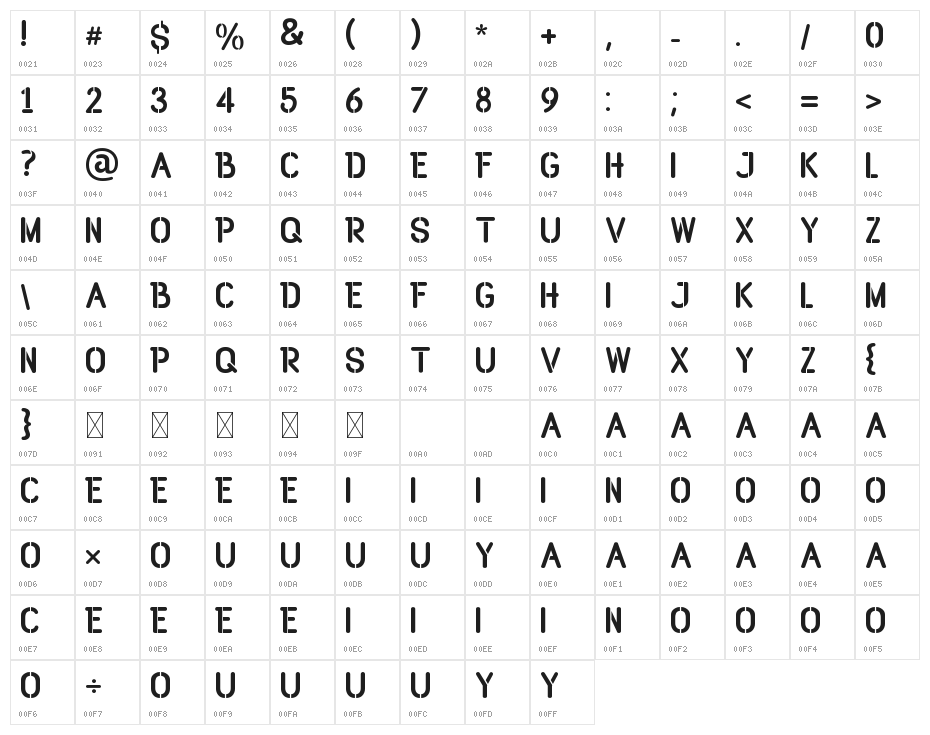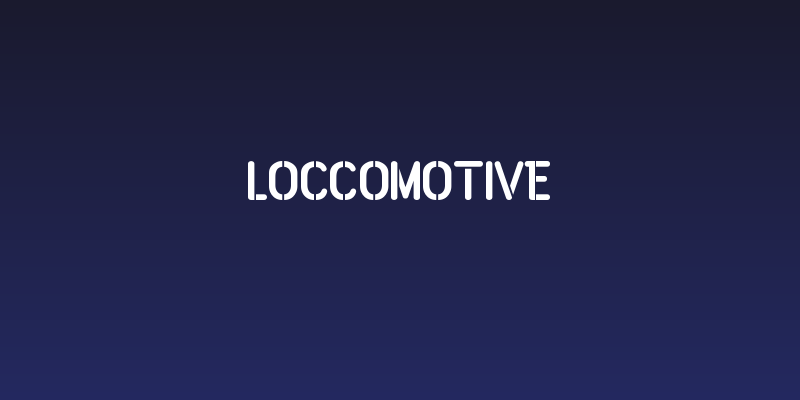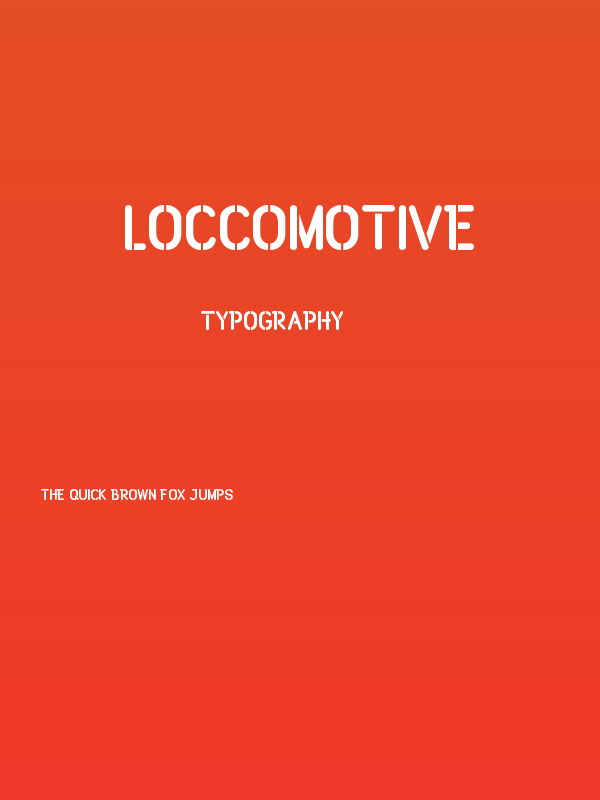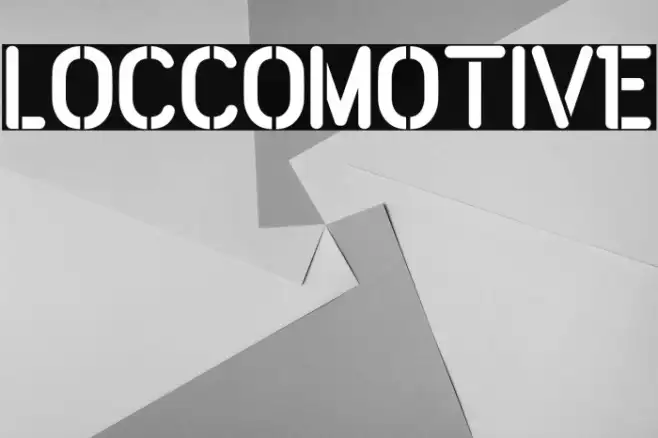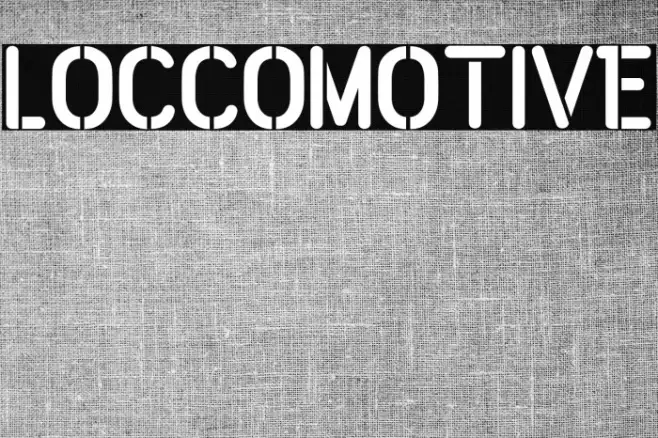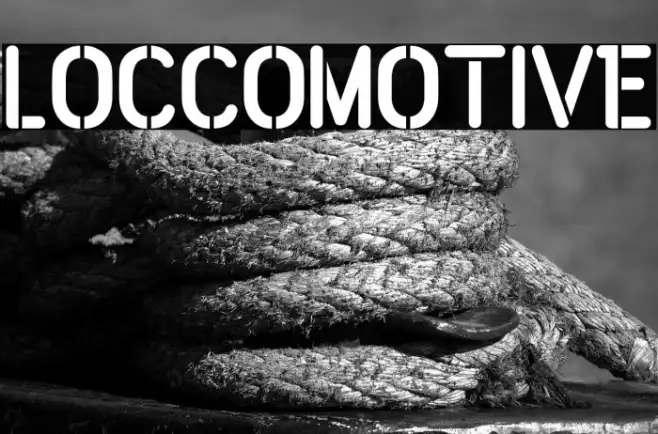
LOCCOMOTIVE Font
LOCCOMOTIVE Description
This font features a bold, modern design with a distinct industrial feel. The characters are constructed with thick strokes and geometric shapes, giving them a strong, impactful presence. The font includes both uppercase and lowercase letters, numerals, and a variety of special characters. The design is characterized by its unique cut-out sections within each letter, adding a dynamic and edgy look. This style is well-suited for projects that require a bold statement, such as branding, posters, and headlines. The font's strong visual impact makes it ideal for use in digital and print media where attention-grabbing text is essential.
| Proposed Projects | Ideal for branding, posters, headlines, and any project requiring a bold, modern statement. |